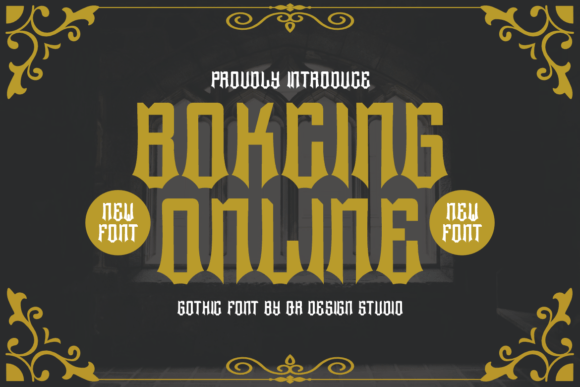
Step into the captivating realm of Bokcing Online Font, a masterful blackletter creation by qrdesignstd. With its bold and thick letters, Bokcing Online Font is poised to inject a striking and unforgettable presence into your projects.
Unleash your creativity and delve into the limitless possibilities offered by Bokcing Online Font. Let your imagination soar as you craft unique and captivating designs that exude character and leave a lasting impression. Whether you're a seasoned designer or just starting your creative journey, Bokcing Online Font is the perfect companion to elevate your projects to new heights.
But what truly sets Bokcing Online Font apart is its versatility. This remarkable font effortlessly adapts to a diverse range of applications, making it an indispensable tool for any creative arsenal. From eye-catching logos and branding designs to captivating posters and flyers, Bokcing Online Font seamlessly blends into any project, adding an air of sophistication and edginess that's sure to turn heads.
Embrace the artistic prowess of Bokcing Online Font and elevate your creative endeavors to unprecedented levels. Let your designs radiate with boldness and charisma as you seamlessly blend traditional blackletter aesthetics with a modern twist.
Moreover, Bokcing Online Font's PUA encoding grants you effortless access to an extensive collection of glyphs and swashes, empowering you to unleash your creativity without limitations. Experiment with a myriad of design possibilities and let your imagination run wild as you craft designs that captivate and inspire.
So why settle for ordinary when you can embrace the extraordinary? Embark on a creative journey with Bokcing Online Font today. Transform your designs into mesmerizing masterpieces that resonate with individuality and leave an indelible mark on your audience. Embrace the power of Bokcing Online Font and unlock the gateway to creative excellence.